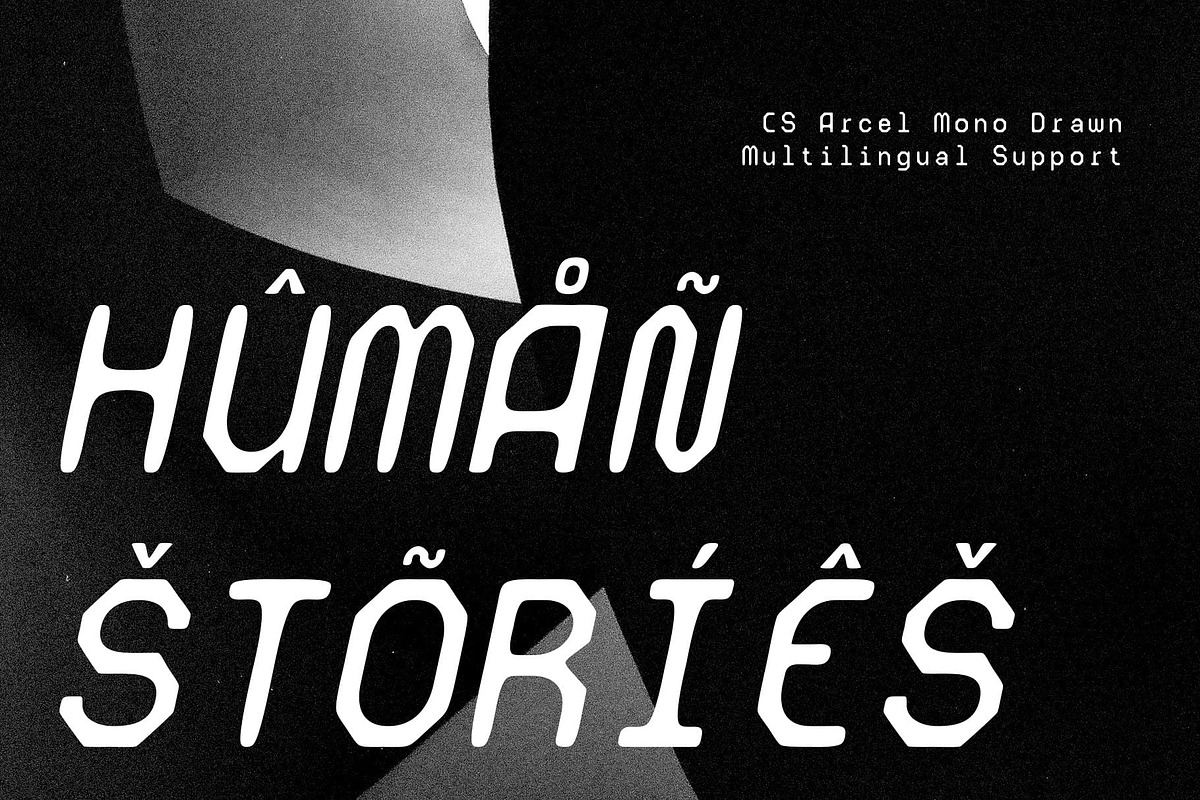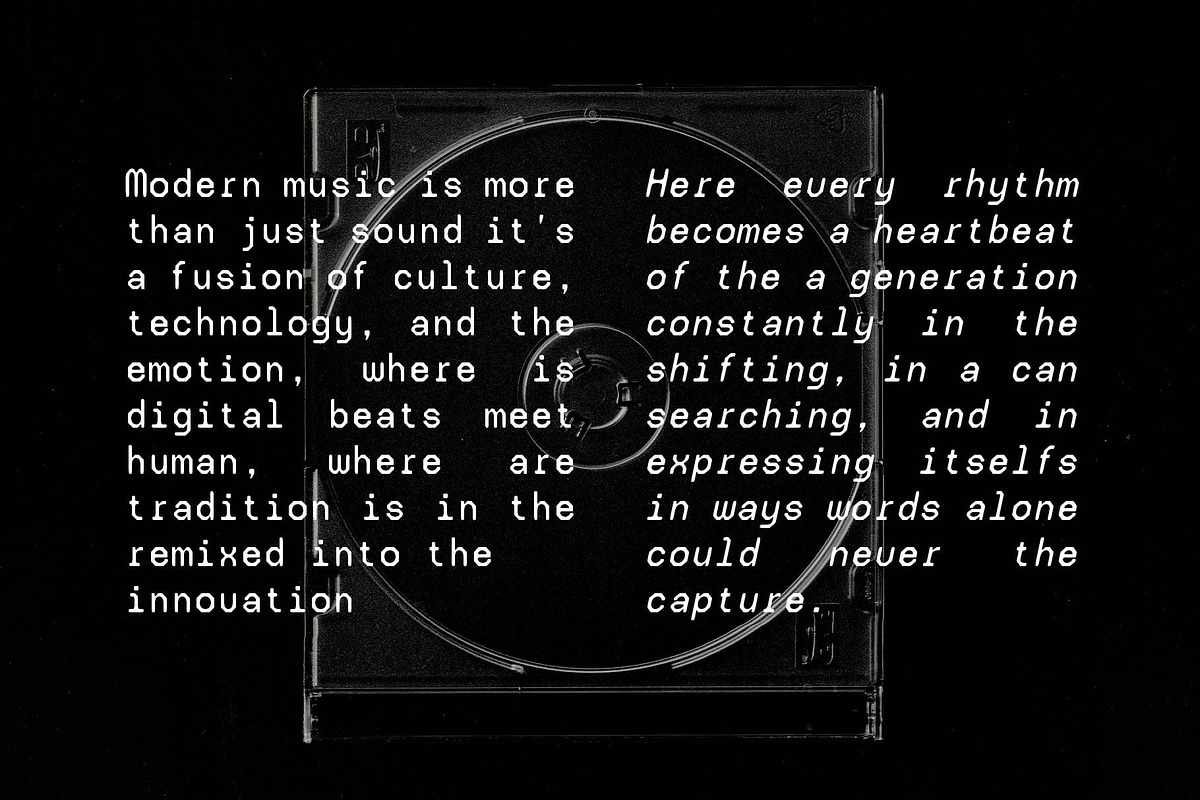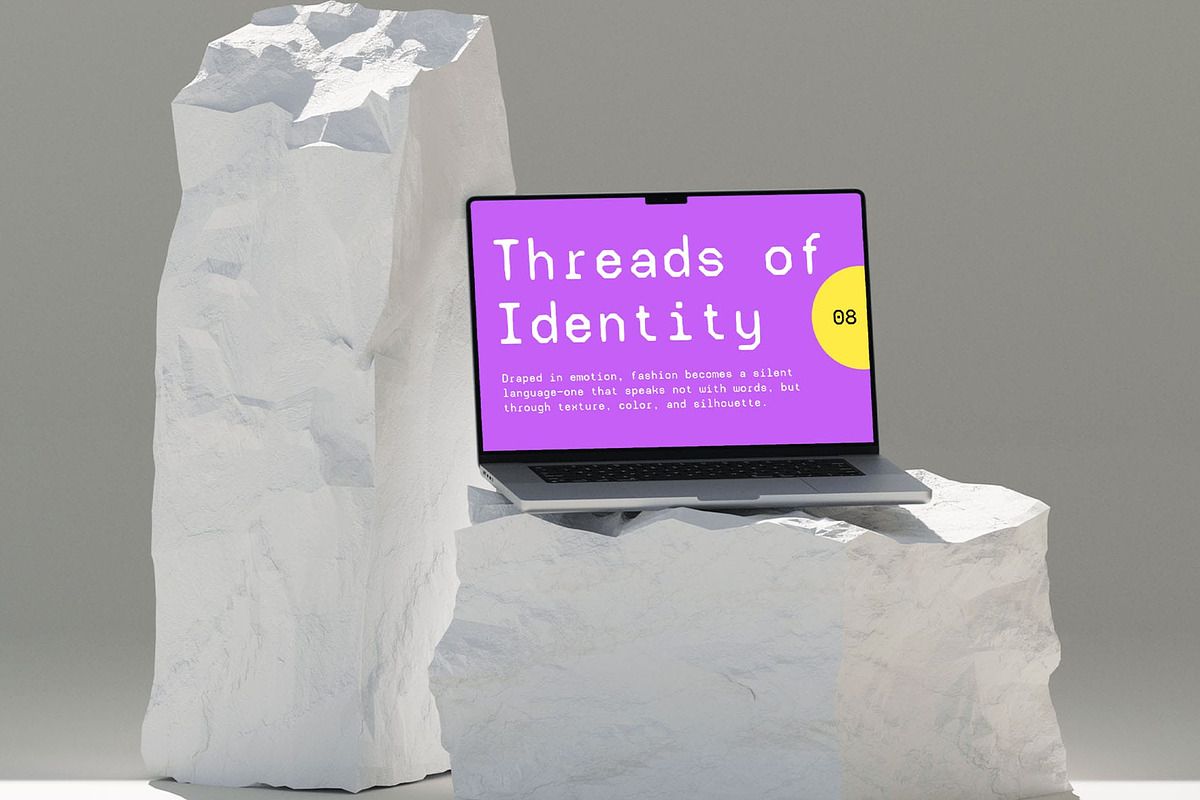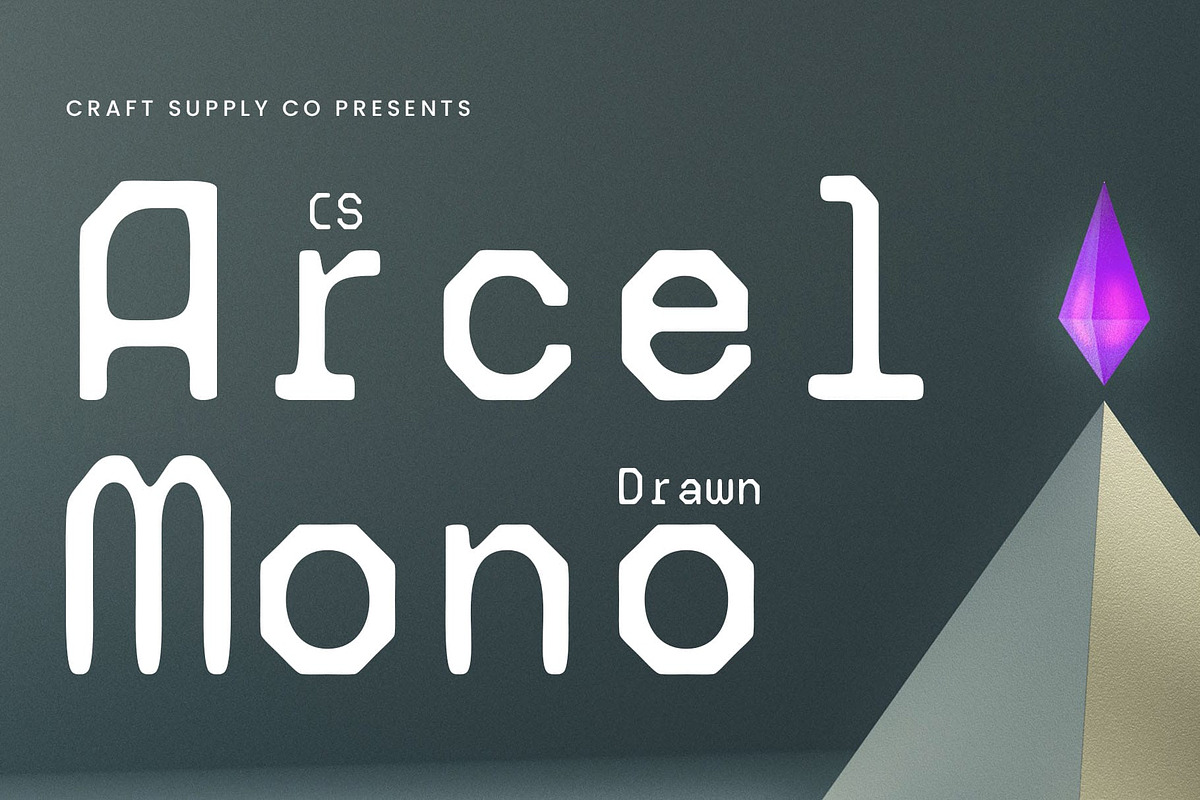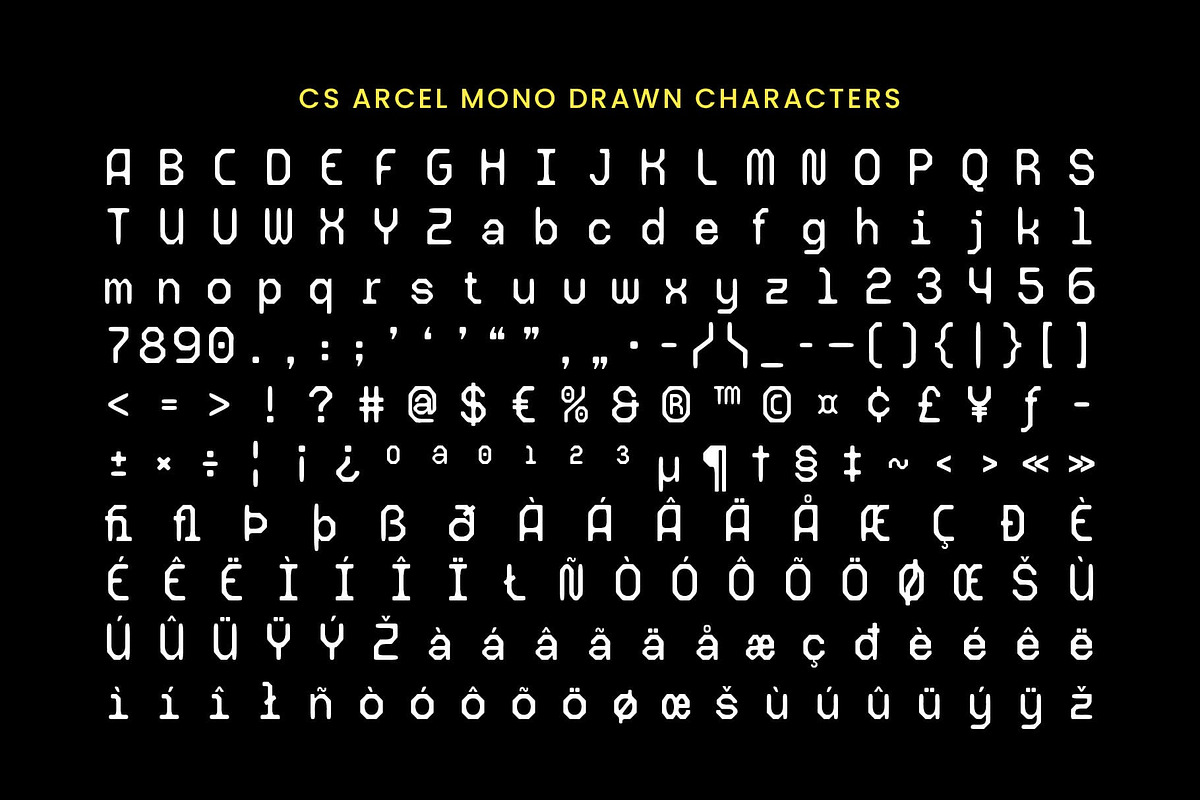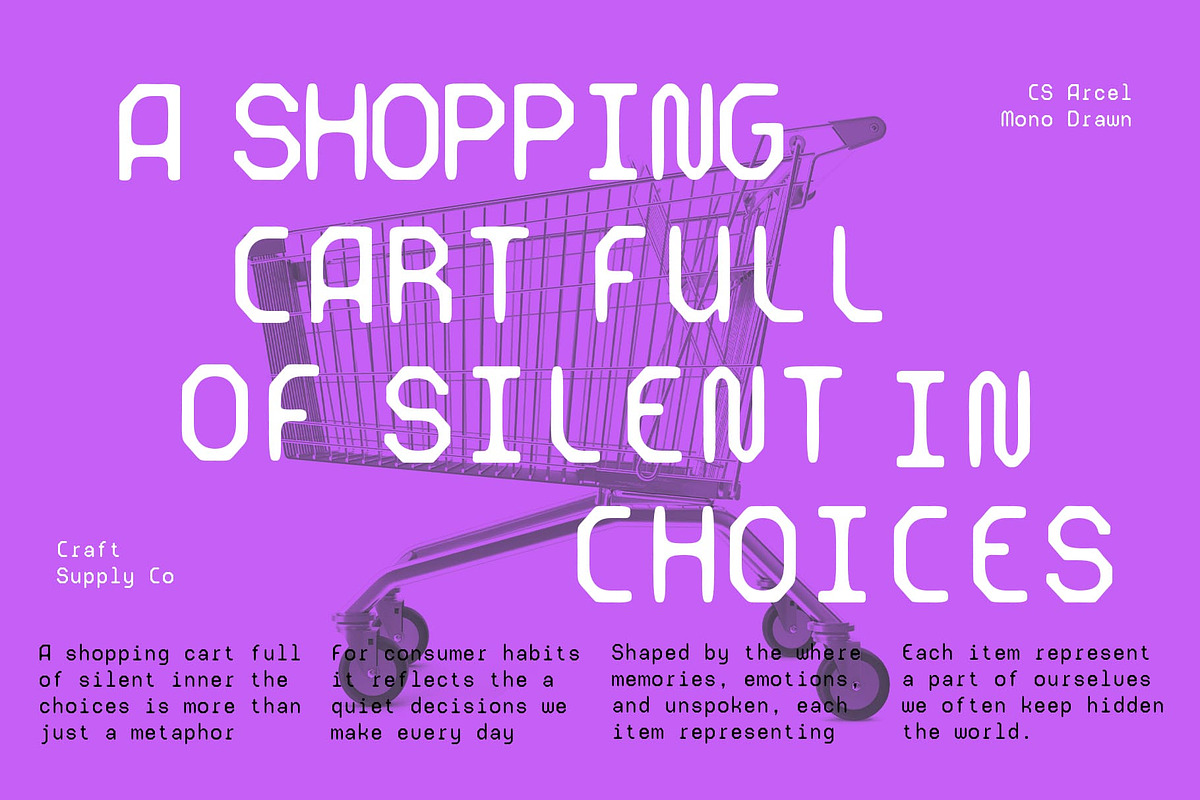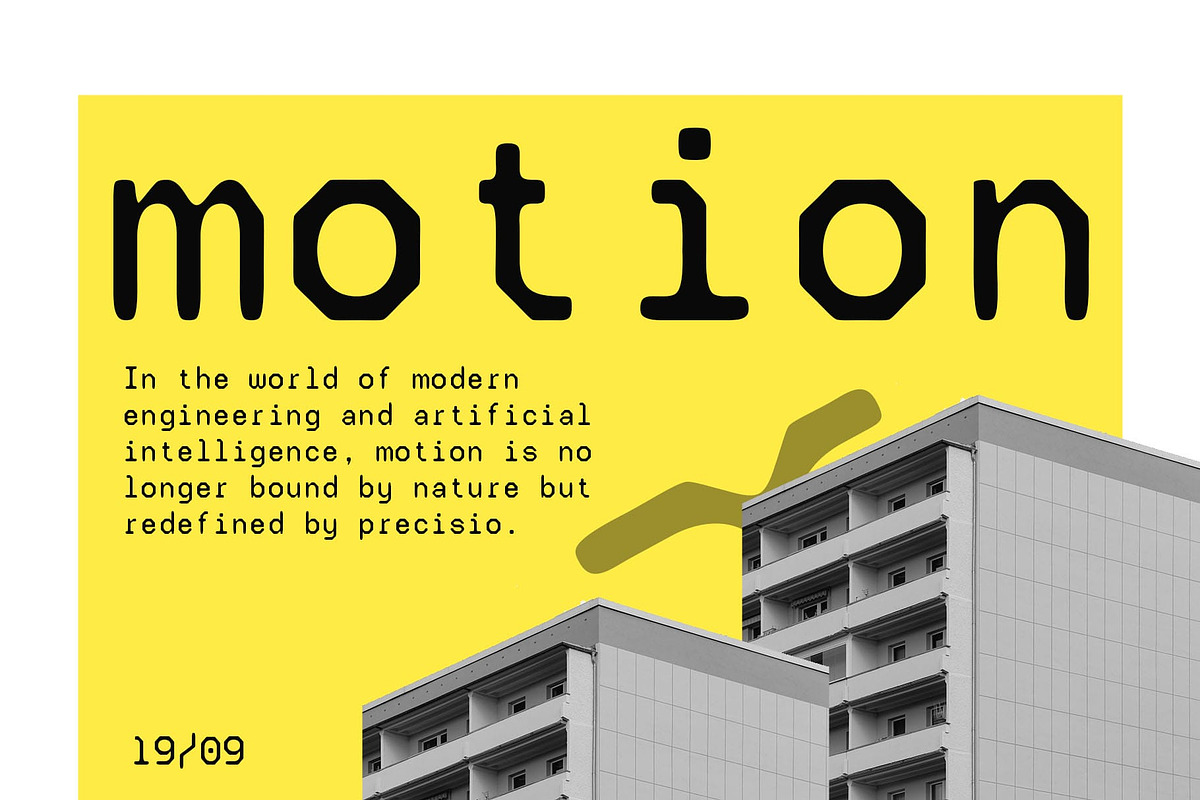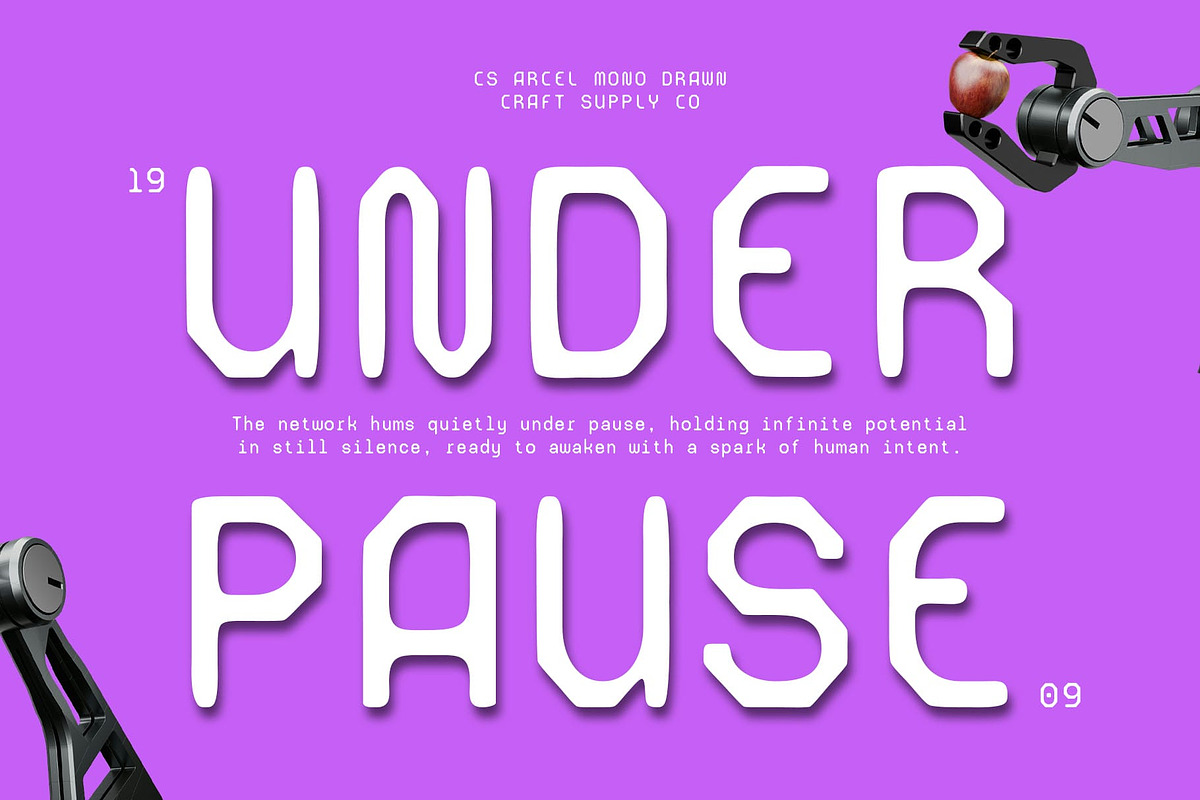
CS Arcel Mono Drawn
CS Arcel Mono Drawn – Tech Precision with Artistic Texture
Structured Clarity in Monospaced Form This is a modern sans-serif font with a monospaced design, where each character occupies the same width, creating a consistent and balanced rhythm across the text. The font’s sleek, techno-inspired style brings a contemporary and digital flair, perfect for tech and coding visuals that require clear, precise legibility.
Drawn Texture Adds Organic Character The drawn effect layered over this modern monospaced font adds a handcrafted, organic touch to its otherwise clean and digital design. As a result, this unique texture enhances the overall visual appeal. Moreover, it gives the font a distinctive character that clearly sets it apart from standard monospaced fonts.
Perfect Balance of Digital and Handmade The combination of monospaced logic and human-made imperfection makes this font an ideal choice for creative professionals working in the tech, music, and digital art industries. This monospaced font is perfect for a wide variety of projects, from coding environments and tech-themed designs to creative visuals in electronic music or digital art.
Versatile for Tech-Forward Creative Projects This drawn monospaced font works seamlessly across various visual contexts—from posters and coding-themed editorials to app design and experimental layouts. Its bold monospacing ensures readability even at small sizes, while the artistic drawn details add uniqueness when used in larger, eye-catching settings.
- CS Arcel Mono Drawn Regular
- CS Arcel Mono Drawn Italic